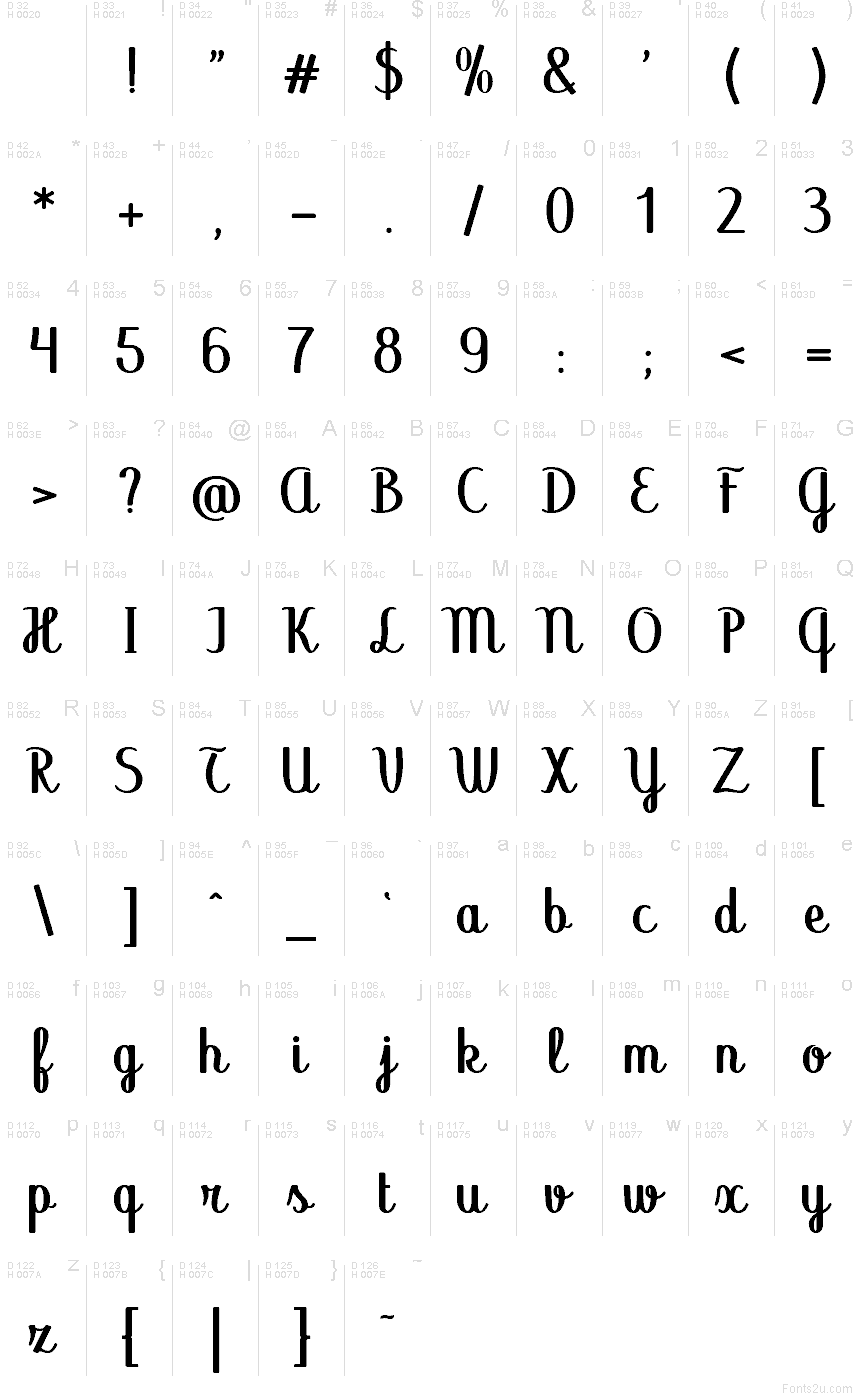
Mamzelle Semi Expanded
Mamzelle Semi Expanded font by Yves Michel is a free handwritten typeface that hits the sweet spot between charm and clarity. Its semi-expanded letters breathe a little more than typical scripts, giving each word an easy elegance that stays legible even at smaller sizes. Rounded curves, smooth connections, and inky, confident strokes create a feel that’s both feminine and grounded rather than frilly.
This free font works beautifully for wedding invitations, boutique logos, packaging labels, greeting cards, quote graphics, and social media posts where you want warmth without sacrificing readability. Using Mamzelle Semi Expanded at larger sizes lets those looping forms really shine; pair it with a simple geometric sans-serif for supporting text to keep your layouts balanced and polished.
This font contains an OpenType 'rlig' feature that includes ligatures and contextual alternates.
It is derived from the 'Abecedary' font and has heavier vertical stems, plus additional ligatures and alternates.